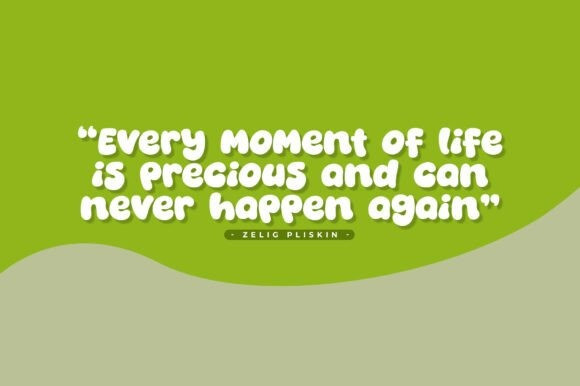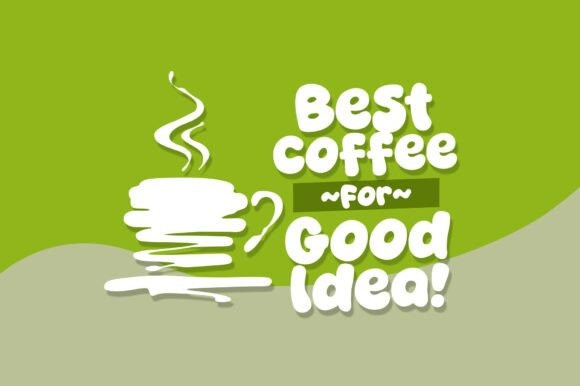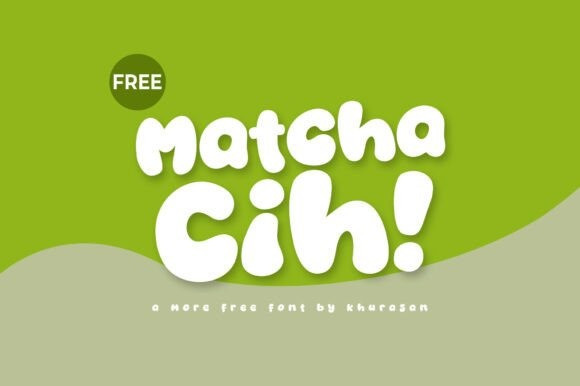
Matcha Cih Font
Matcha Cih Font This adorable bubble-style font features soft, rounded edges and a friendly personality. Its smooth, plump characters are perfect for adding a playful and modern touch to any project. Whether you’re designing for kids or a trendy lifestyle brand, Matcha Cih brings a refreshing vibe to the table.